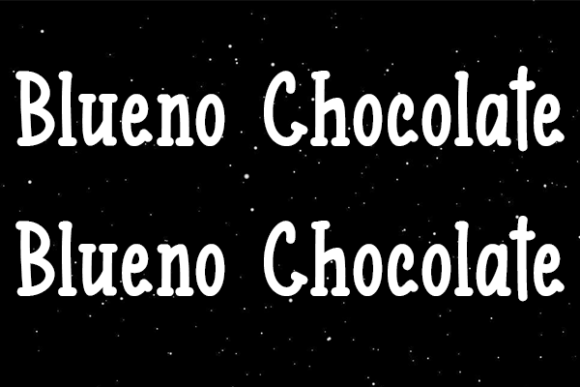
Blueno Chocolate Font
db-ku.com - Script & Handwritten -- Blueno Chocolate is the best choice for creating eye catching logos, branding and quotes. Every letter has a unique and beautiful touch, which will make your design come alive!